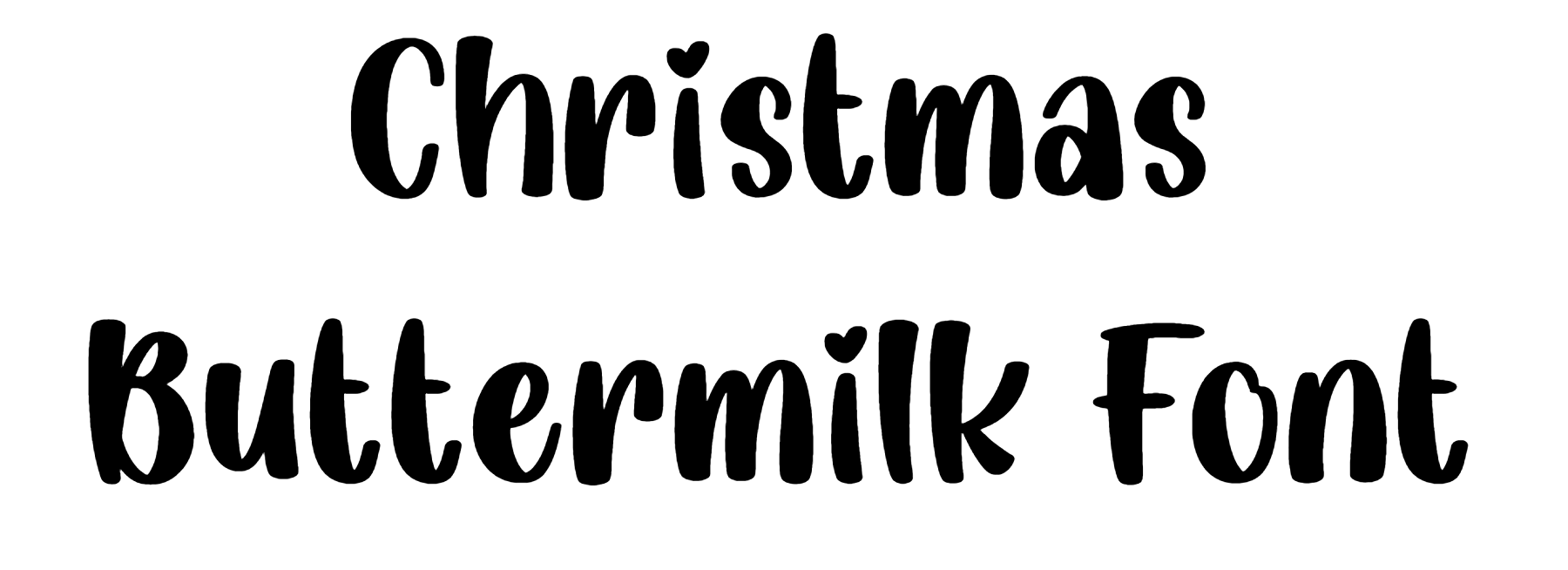
Christmas Buttermilk Font
Christmas Buttermilk
Christmas Buttermilk is a cartoon font designed by Mozatype. Its bouncy, rounded letters feel playful, like lettering from a cartoon or a comic book. It's a free download, and you can try it with your own text in the preview above first.
What You Can Type With Christmas Buttermilk
With complete upper and lowercase letters and all ten digits, Christmas Buttermilk is ready for real wording, not just a single headline. Everyday marks like &, !, ? and @ are there too. Thanks to its accented letters, it also works for Spanish, French, German, Portuguese and Italian, not just English.
Where Christmas Buttermilk Works Best
Designers usually reach for fonts like Christmas Buttermilk when they're making kids' books, birthday invites and fun YouTube thumbnails. Cartoon fonts are great for short, fun lines. If you place it over a busy photo, add a thick outline or a drop shadow so it stays readable.
Does Christmas Buttermilk support accented letters?
Yes. Christmas Buttermilk includes the accented letters needed for Spanish, French, German, Portuguese and Italian, so it works for more than just English.